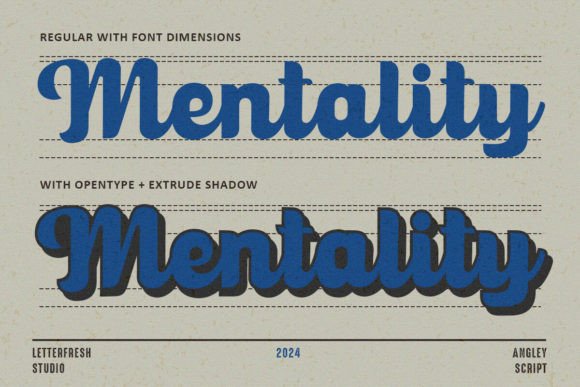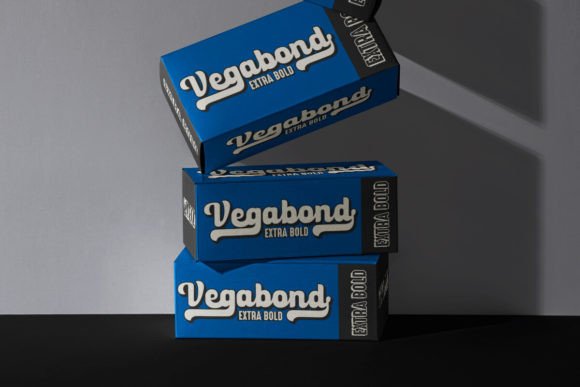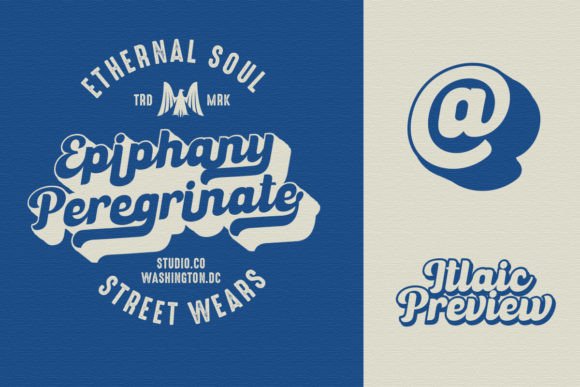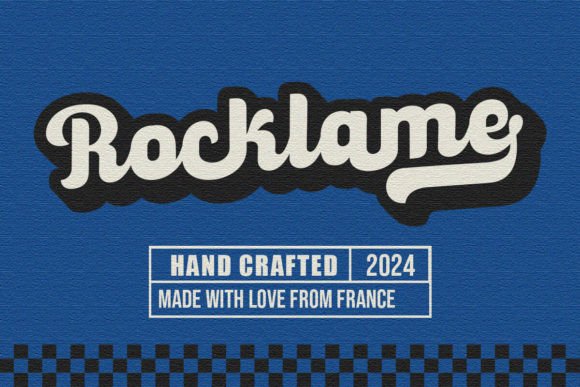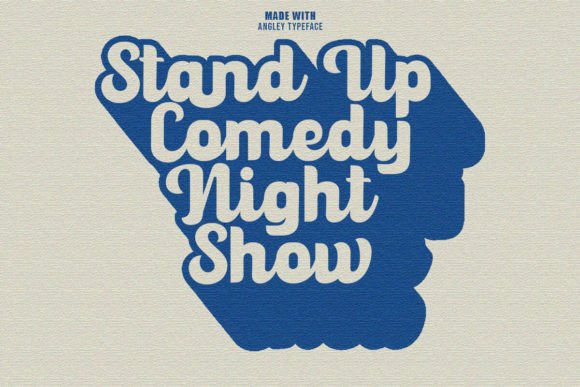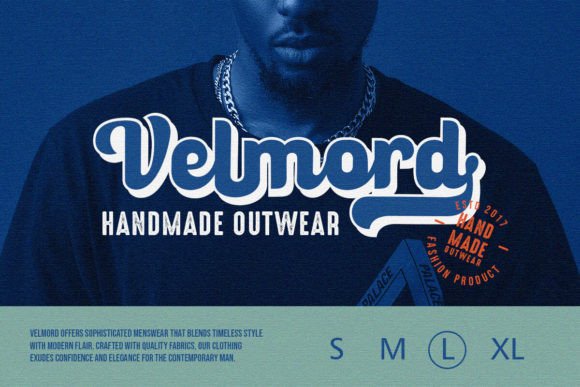
Discover the Groovy Angley Font: A Bold Retro Script for Designers and Crafters
Are you a designer or crafter looking for a font that embodies the spirit of the 1960s? Look no further than the Angley Font, a bold retro script that’s sure to transport you back to a bygone era. With its extrude version, this typeface is perfect for creating a retro effect that’s sure to turn heads.
What is Angley Font?
Angley Font is a unique and stylish typeface that’s inspired by the graphic design of the 1960s. Its bold, cursive script is reminiscent of classic retro fonts, but with a modern twist that makes it perfect for a wide range of design applications. Whether you’re creating a logo, invitation, or packaging design, Angley Font is sure to add a touch of vintage flair.
Key Features of Angley Font
- Bold and Retro: Angley Font is a bold and eye-catching typeface that’s perfect for making a statement.
- Extrude Version: The extrude version of Angley Font allows you to create a retro effect font easily, adding an extra layer of depth and dimension to your designs.
- Versatile: Angley Font is suitable for a wide range of design applications, including logos, invitations, labels, magazines, books, greeting/wedding cards, packaging, fashion, makeup, stationery, novels, labels, and advertising.
Why Use Angley Font?
So why should you choose Angley Font for your design projects? Here are just a few reasons:
- Instant Retro Style: Angley Font gives you instant retro style, allowing you to add a touch of vintage flair to your designs.
- Easily Readable: Despite its bold and cursive script, Angley Font is easily readable, making it perfect for body text and headlines.
- Unique and Memorable: Angley Font is a unique and memorable typeface that’s sure to make your designs stand out from the crowd.
How to Use Angley Font
Angley Font is easy to use and can be applied to a wide range of design projects. Here are a few ideas to get you started:
- Logos: Use Angley Font to create a bold and eye-catching logo that’s sure to make a statement.
- Invitations: Add a touch of vintage flair to your invitations with Angley Font, perfect for weddings, parties, and other special events.
- Packaging: Use Angley Font to add a retro touch to your packaging designs, perfect for fashion, beauty, and food products.
- Advertising: Angley Font is perfect for advertising, allowing you to create bold and eye-catching headlines and copy.
Tips and Tricks for Using Angley Font
Here are a few tips and tricks for getting the most out of Angley Font:
- Experiment with Colors: Angley Font looks great in a wide range of colors, so don’t be afraid to experiment and find the perfect hue for your design.
- Mix and Match: Try mixing and matching Angley Font with other typefaces to create a unique and interesting design.
- Play with Texture: Add texture to your design by combining Angley Font with different textures and patterns.
Angley Font is a bold and stylish typeface that’s perfect for designers and crafters looking to add a touch of retro flair to their designs. With its extrude version and versatile design, Angley Font is suitable for a wide range of applications, from logos and invitations to packaging and advertising. So why not give Angley Font a try and see how it can elevate your designs to the next level?